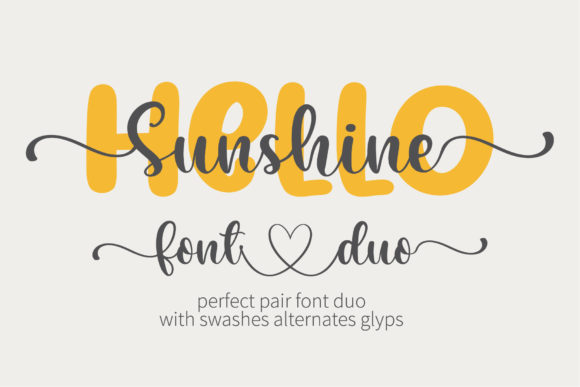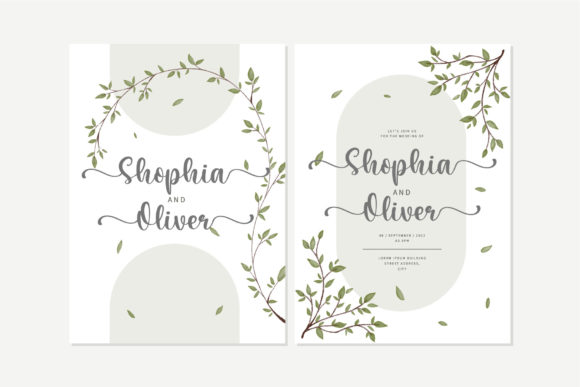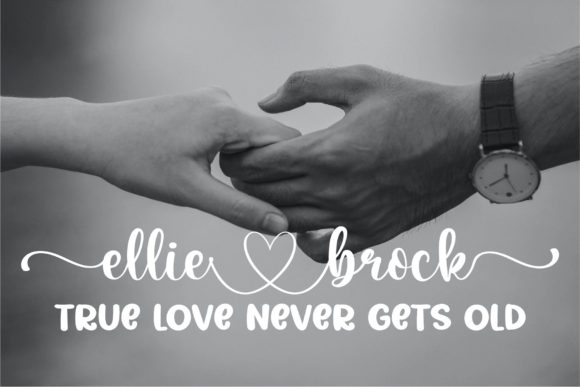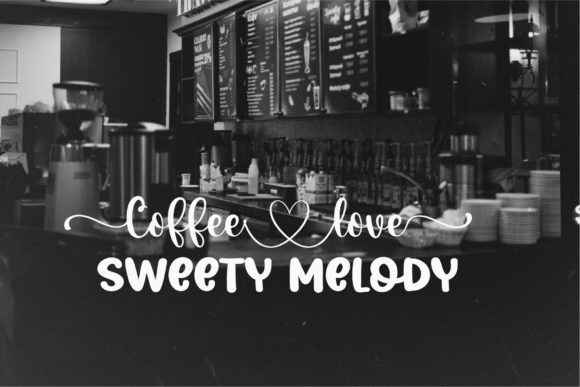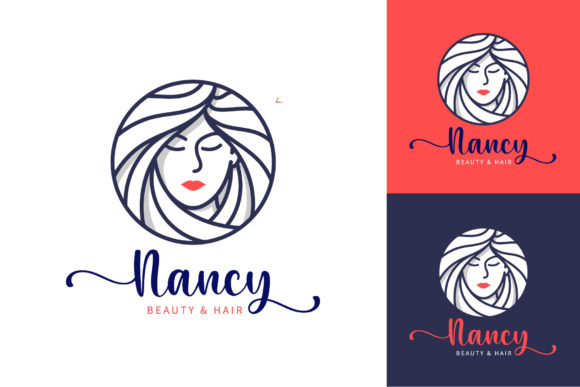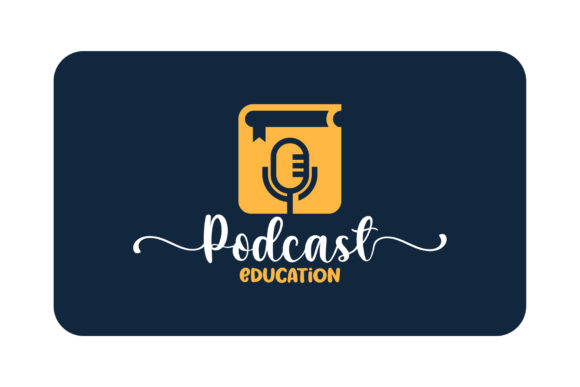
Hello Sunshine Font
About Hello Sunshine Font
Hello Sunshine is a duo-styled handwritten font that feels equally charming and delicate. This font is PUA encoded which means you can access all of the glyphs and swashes with ease!